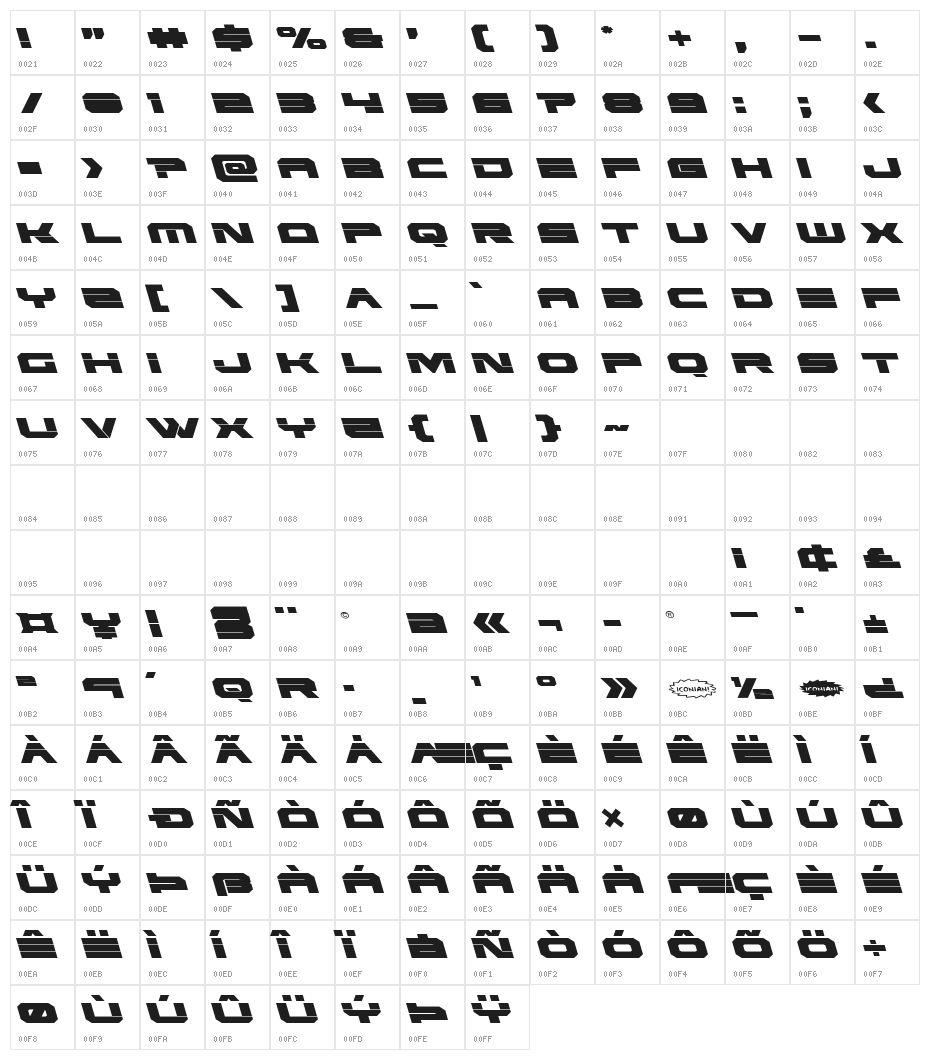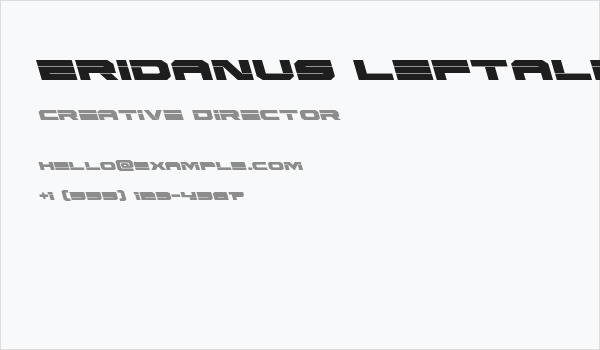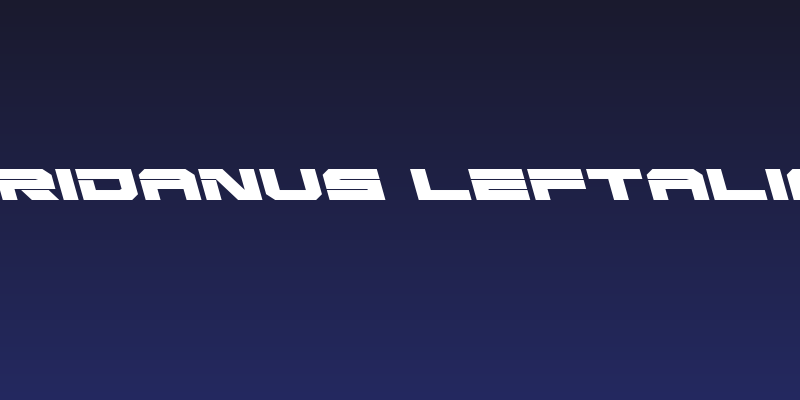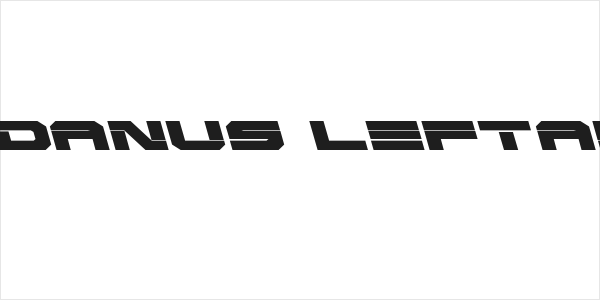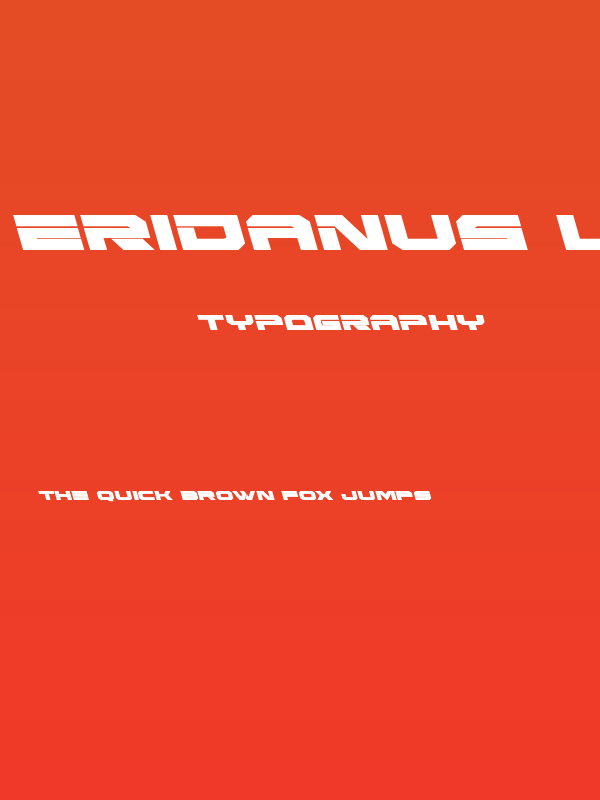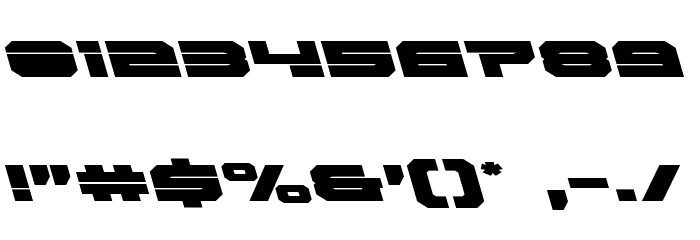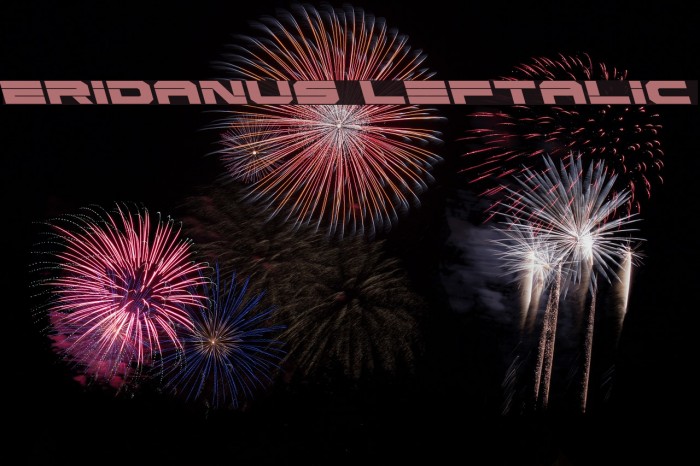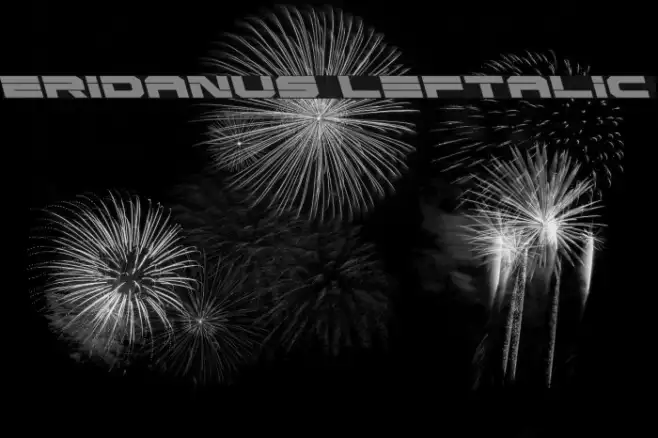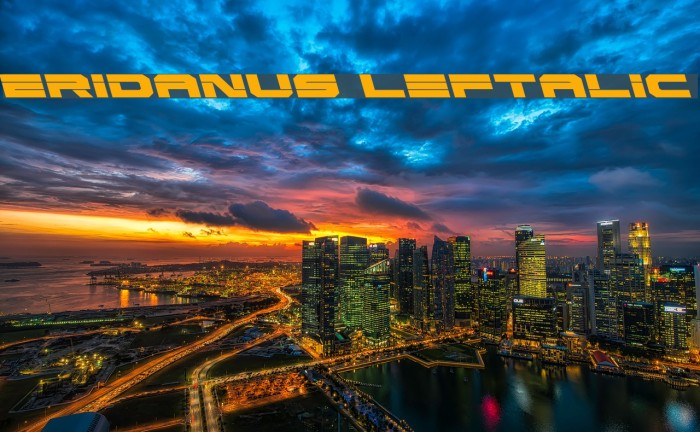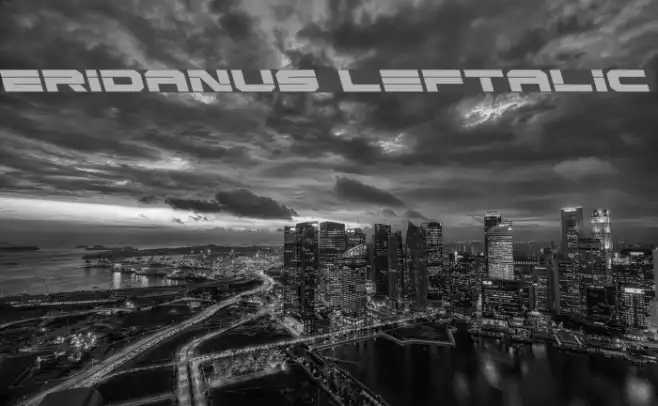
Eridanus Leftalic Font
Eridanus Leftalic Description
This font features a bold, futuristic design with sharp, angular edges and a distinct geometric style. The characters are constructed with a series of straight lines and angles, creating a dynamic and modern appearance. The uppercase and lowercase letters maintain a consistent style, with each character exhibiting a unique, segmented look. The numbers and special characters follow the same design principles, ensuring uniformity across the font. This font's boldness and unique structure make it stand out, ideal for projects that require a strong visual impact.
| Proposed Projects | Ideal for sci-fi themed designs, video game graphics, technology branding, and modern posters. |